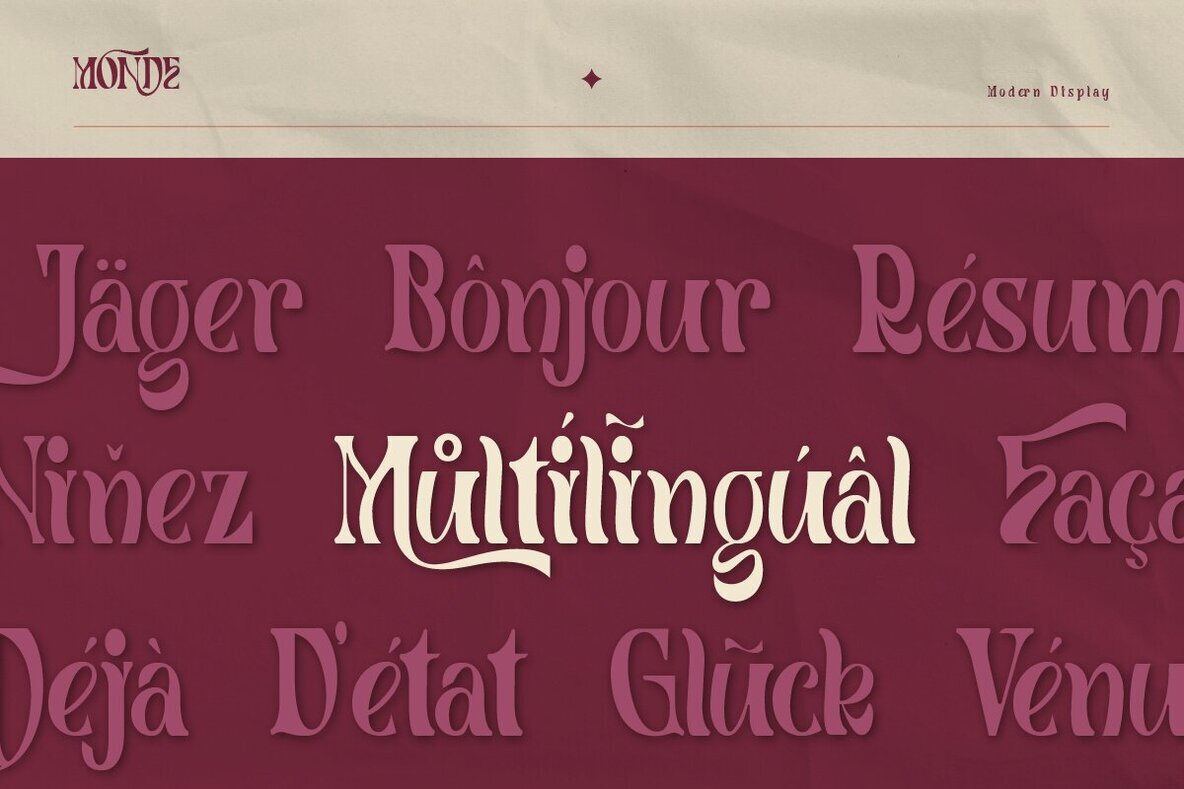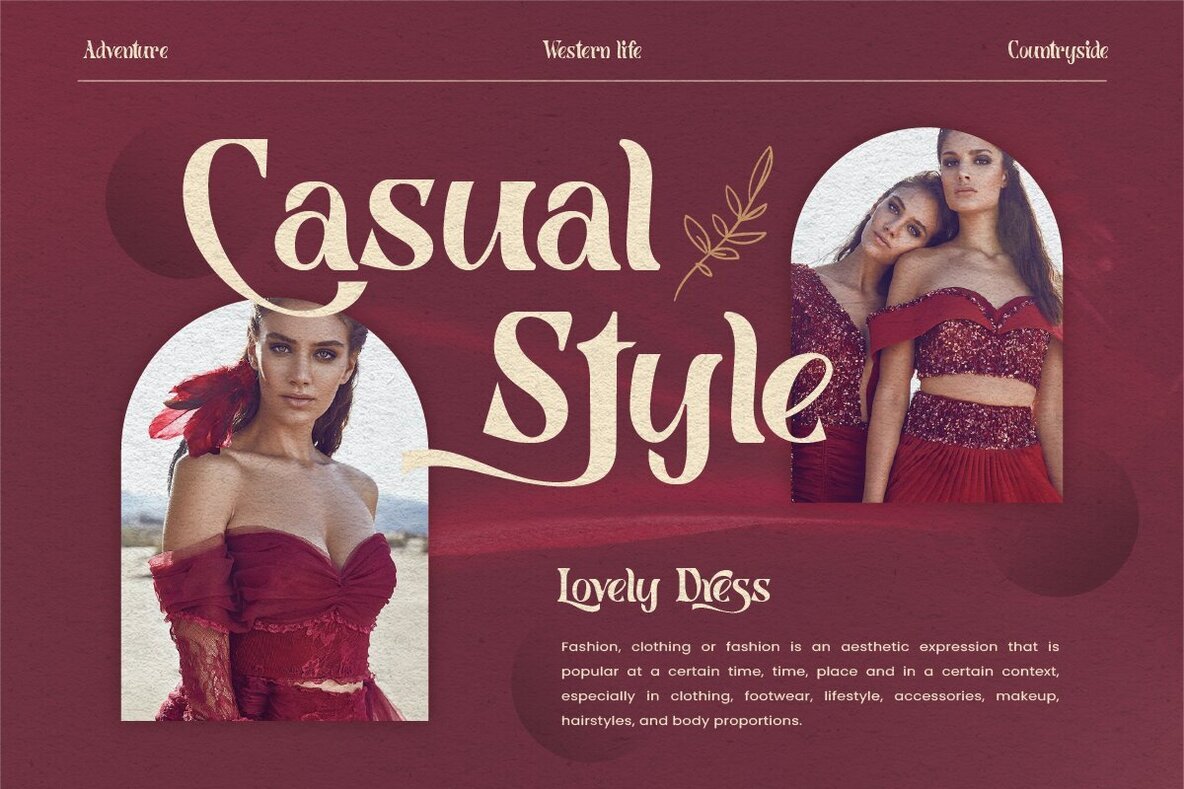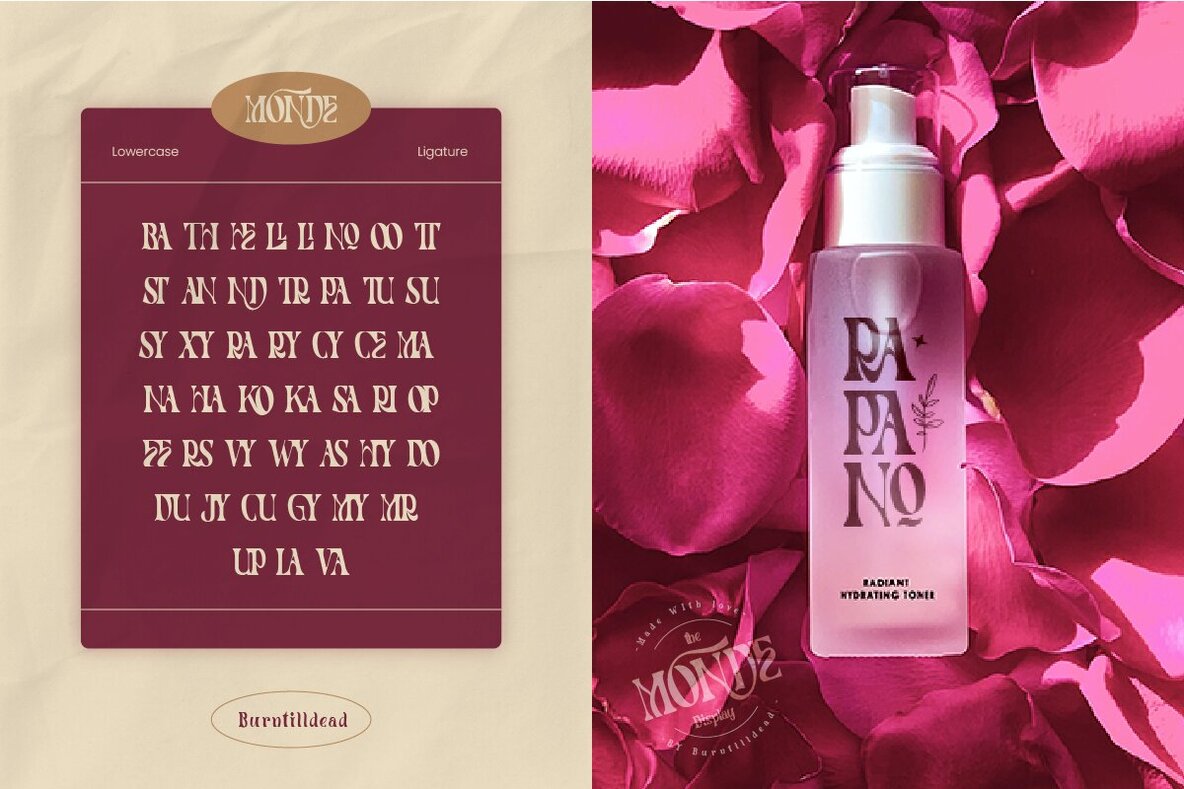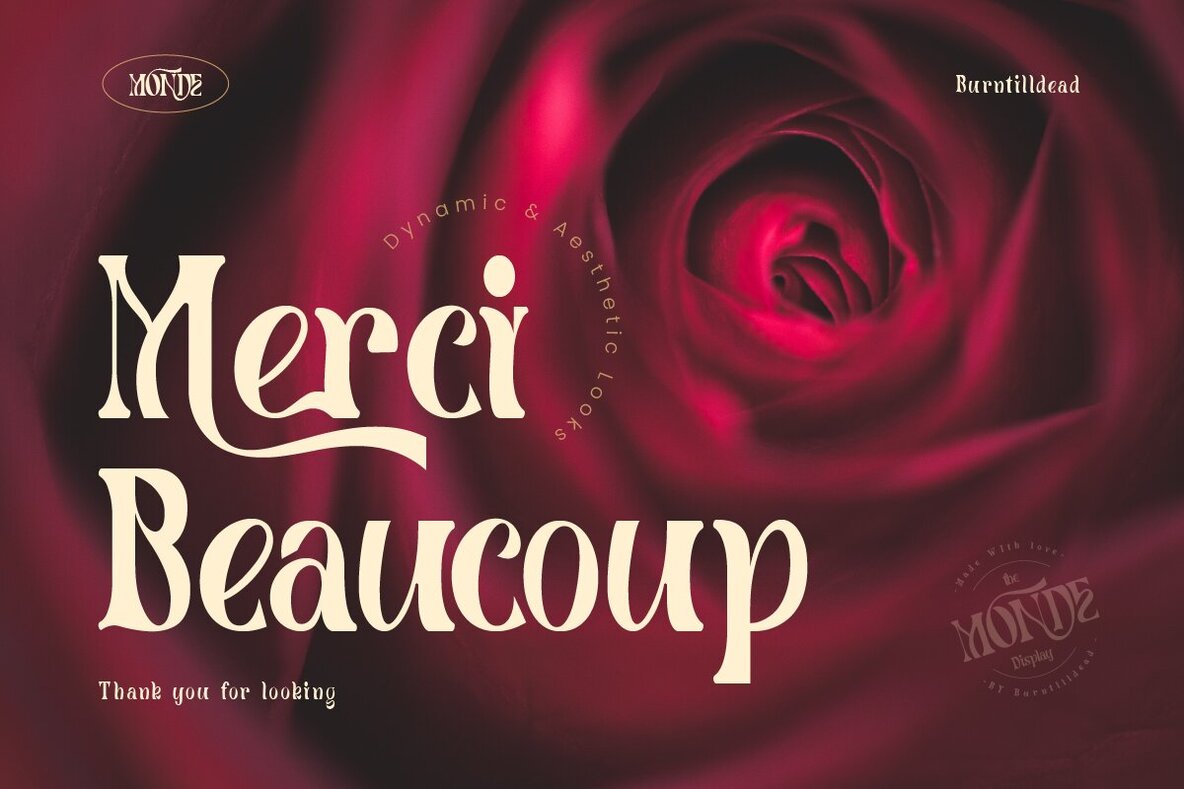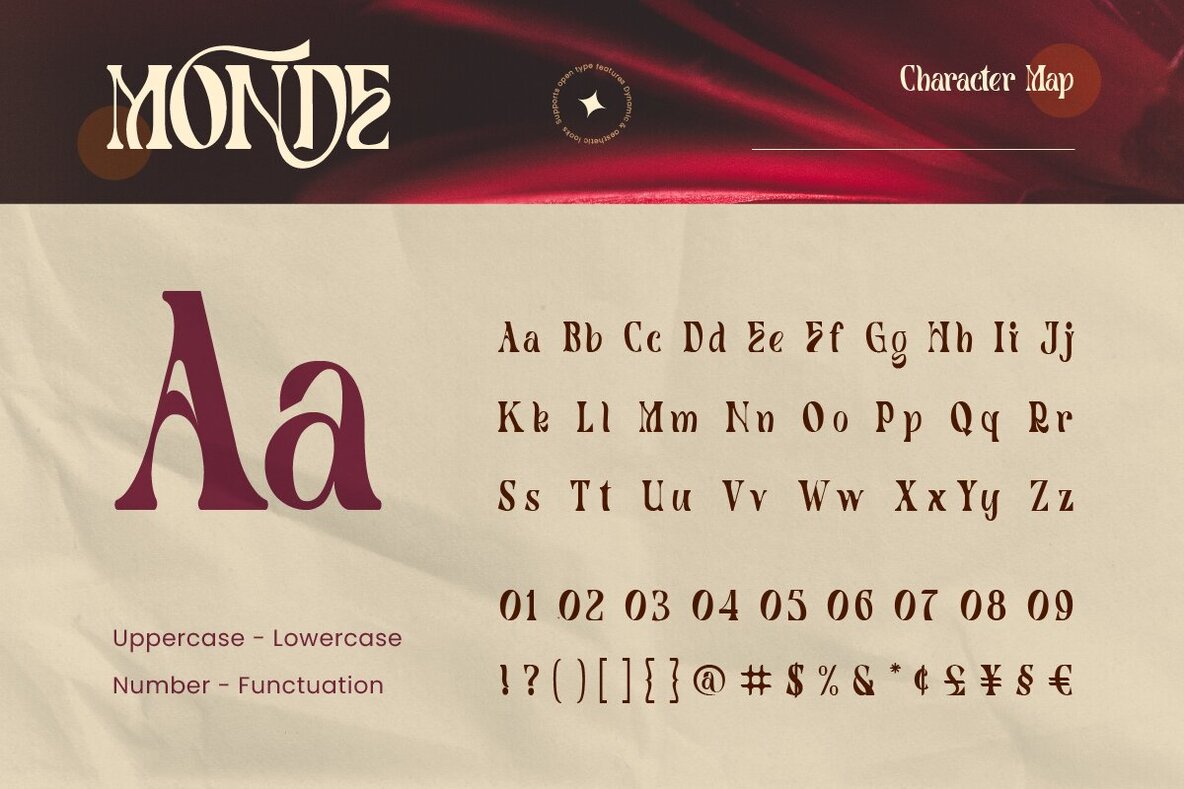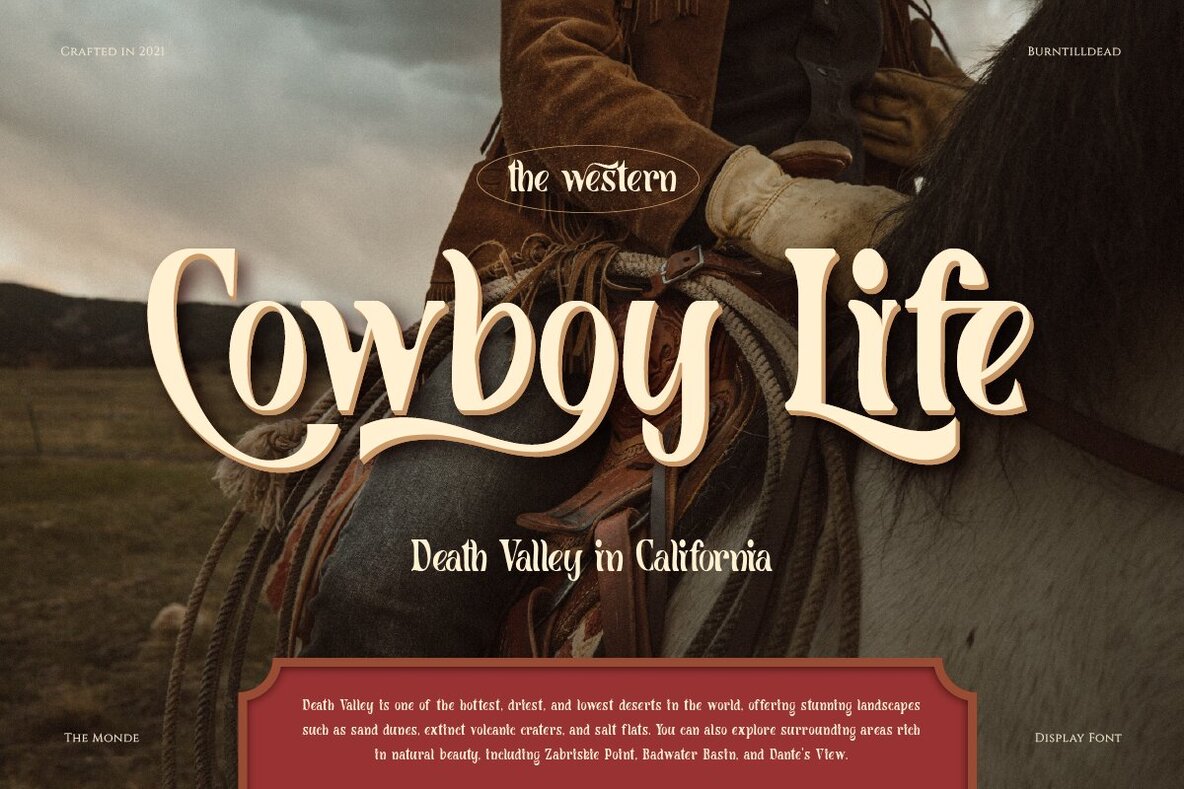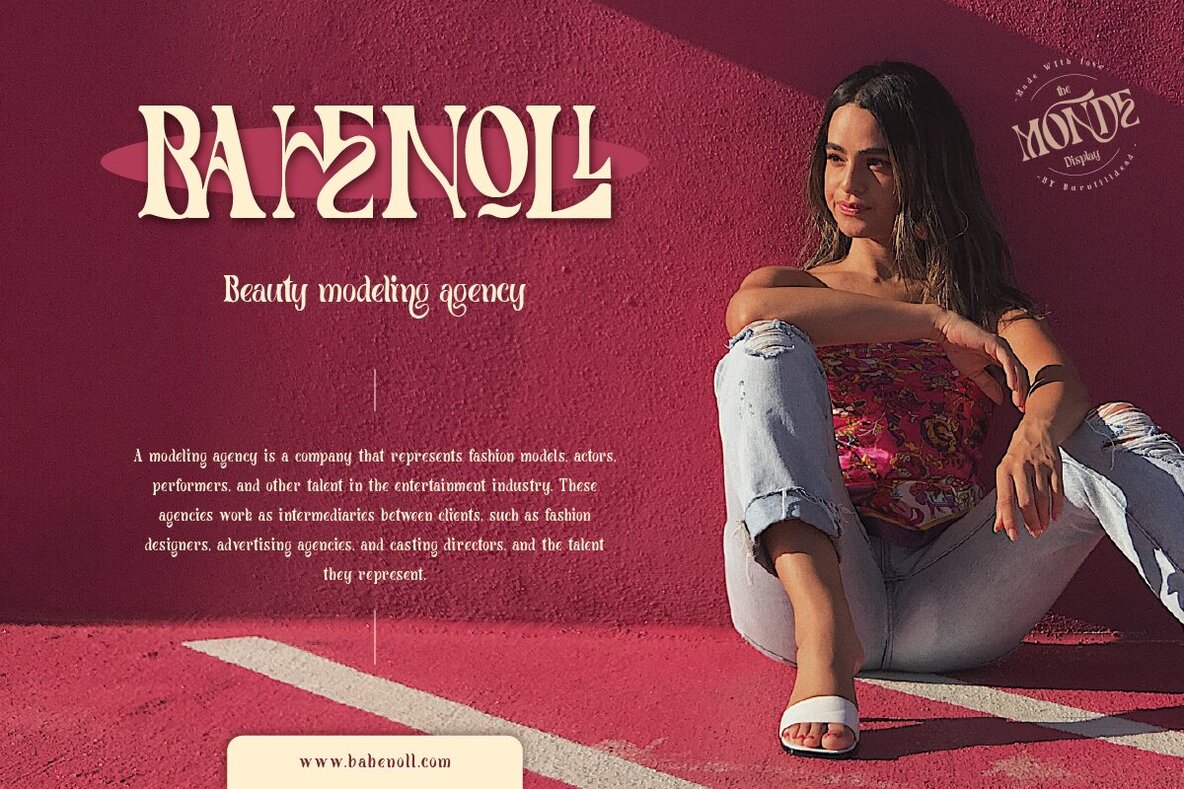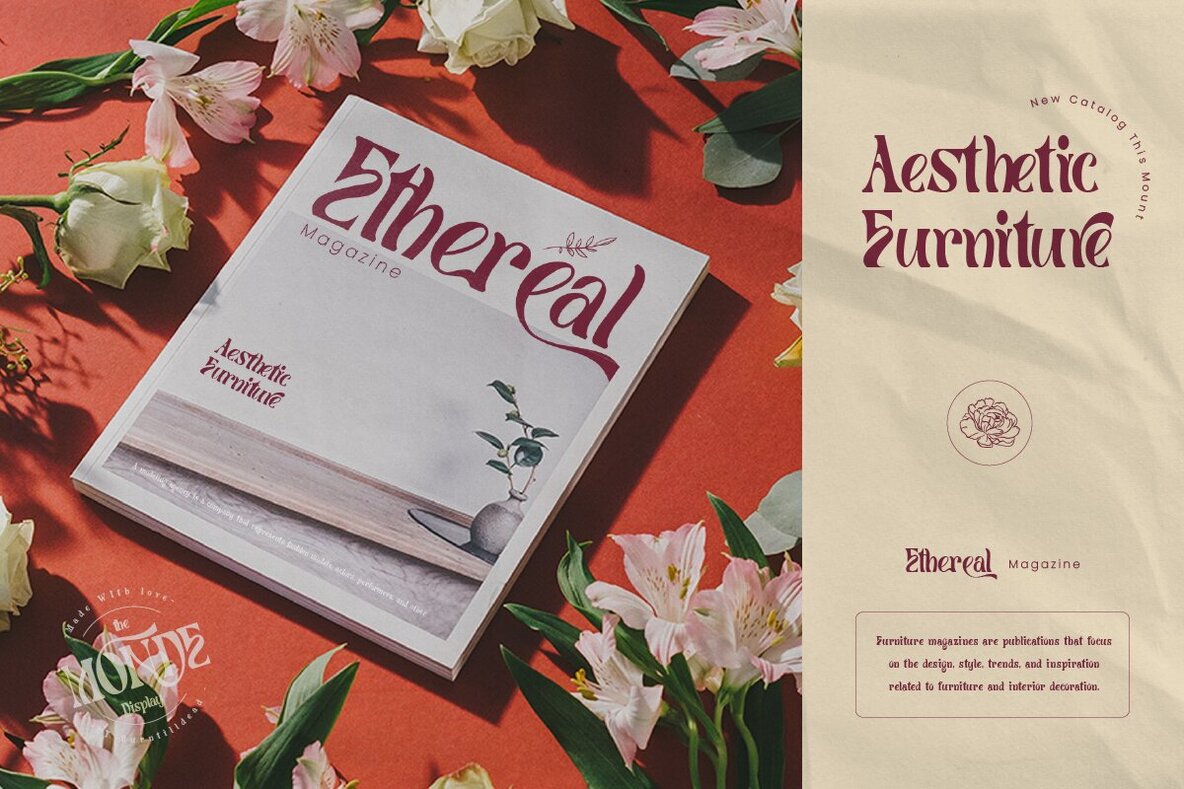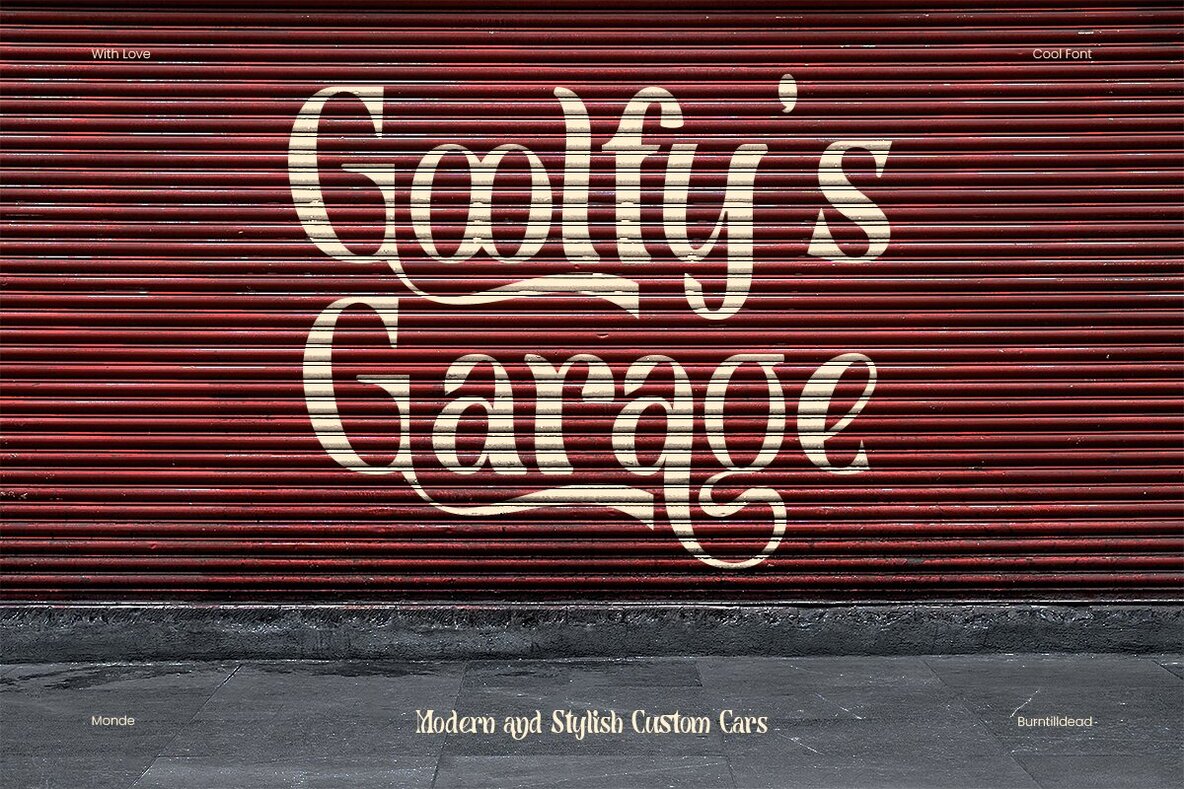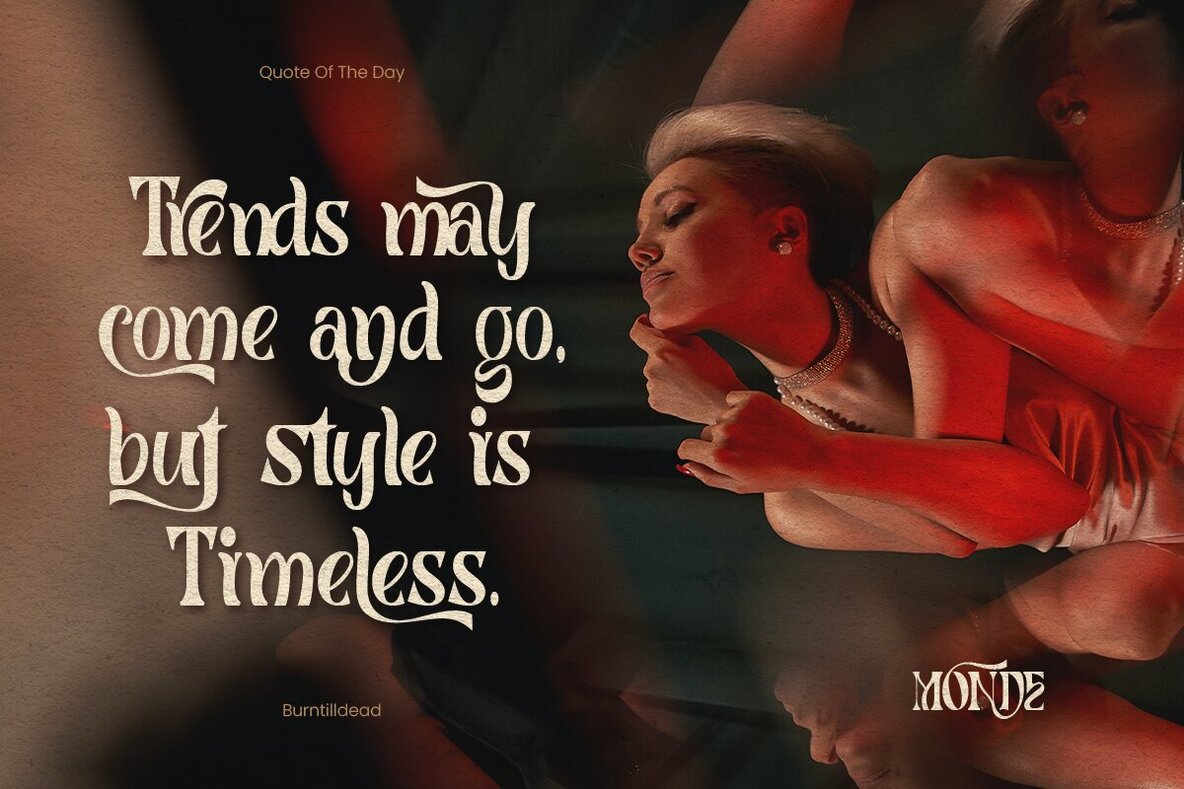
Monde Font
Monde Regular
"Monde" is a display typeface designed to enhance your projects with over 100 ligatures for seamless combinations and more than 70 alternate characters for a dynamic and aesthetic appearance. To access hidden alternates available in OpenType fonts, a character map PDF is provided. You can select the desired character on the PDF, copy it to your clipboard, and paste it into your application using the Monde font. Ideal for branding, headlines, logotypes, stickers, and editorial designs.Monde: A Display Typeface with Dynamic Flair